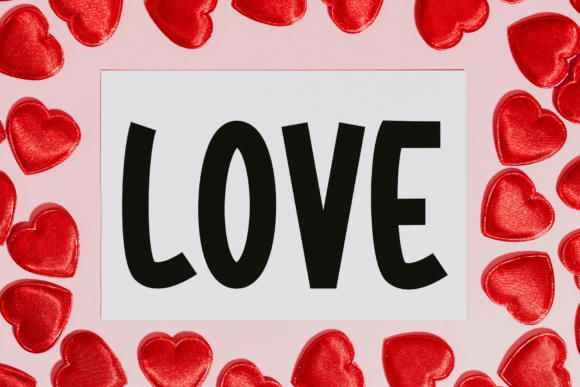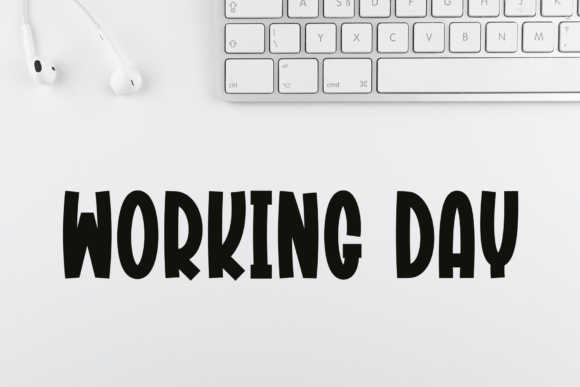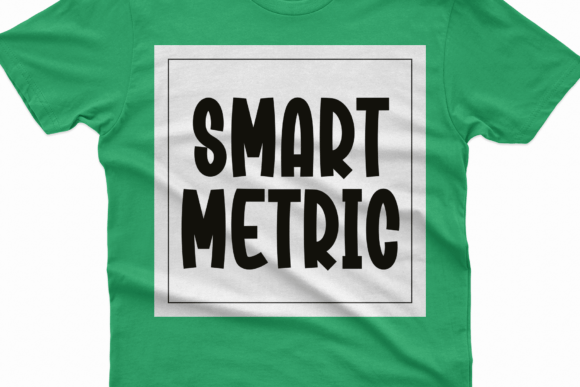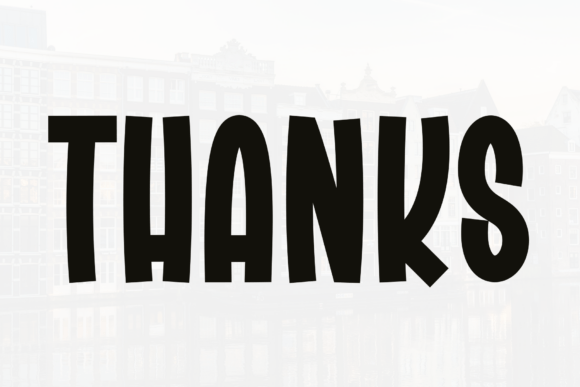
Discover the Charm of Graffix Font: Elevate Your Designs with Heartfelt Perfection
Are you on the lookout for a font that adds a touch of warmth and personality to your designs? Look no further than Graffix Font, a charming display font that embodies the essence of heartfelt perfection. With its smooth strokes and organic lines, Graffix effortlessly evokes a relaxed atmosphere, making it an ideal choice for a wide range of design projects.
The Characteristics of Graffix Font
Graffix Font boasts a unique set of characteristics that set it apart from other display fonts. Its smooth, flowing strokes and organic lines create a sense of fluidity and natural elegance, giving your designs a friendly and approachable feel. The font’s charming appearance is perfect for designs that require a personal touch, such as:
- Branding: Establish a strong brand identity with Graffix Font’s distinctive and memorable style.
- Invitations: Create beautiful, eye-catching invitations for special occasions, such as weddings, birthdays, and baby showers.
- Social Media Graphics: Elevate your social media presence with stunning graphics that showcase Graffix Font’s versatility.
Why Choose Graffix Font?
With Graffix Font, you can add a touch of sophistication and whimsy to your designs. Here are just a few reasons why designers and crafters love working with this charming font:
- Unique Style: Graffix Font’s distinctive style ensures that your designs stand out from the crowd.
- Easy to Read: Despite its decorative nature, Graffix Font remains highly legible, making it perfect for use in a variety of contexts.
- Versatile: From digital designs to print materials, Graffix Font adapts seamlessly to different mediums and applications.
Design Ideas with Graffix Font
Graffix Font’s versatility knows no bounds. Here are some design ideas to get you started:
- Wedding Stationery: Use Graffix Font to create beautiful wedding invitations, save-the-date cards, and thank-you notes.
- Social Media Campaigns: Develop eye-catching social media graphics, such as quote overlays, promotional banners, and event announcements.
- Branding Materials: Incorporate Graffix Font into your brand’s visual identity, including business cards, brochures, and packaging.
- Crafting Projects: Add a personal touch to your crafting projects, such as handmade cards, scrapbooking, and DIY decor.
Tips for Using Graffix Font
To get the most out of Graffix Font, keep the following tips in mind:
- Pair with Complementary Fonts: Combine Graffix Font with simpler fonts to create visual interest and hierarchy.
- Experiment with Colors: Take advantage of Graffix Font’s versatility by experimenting with different colors and textures.
- Play with Size and Layout: Don’t be afraid to experiment with different font sizes and layouts to create visually appealing compositions.
Graffix Font is a charming display font that offers a unique blend of style, versatility, and heartfelt perfection. Whether you’re a designer, crafter, or simply someone looking to elevate their brand or social media presence, Graffix Font is an excellent choice. With its smooth strokes, organic lines, and relaxed atmosphere, Graffix Font is sure to inspire your next design project.